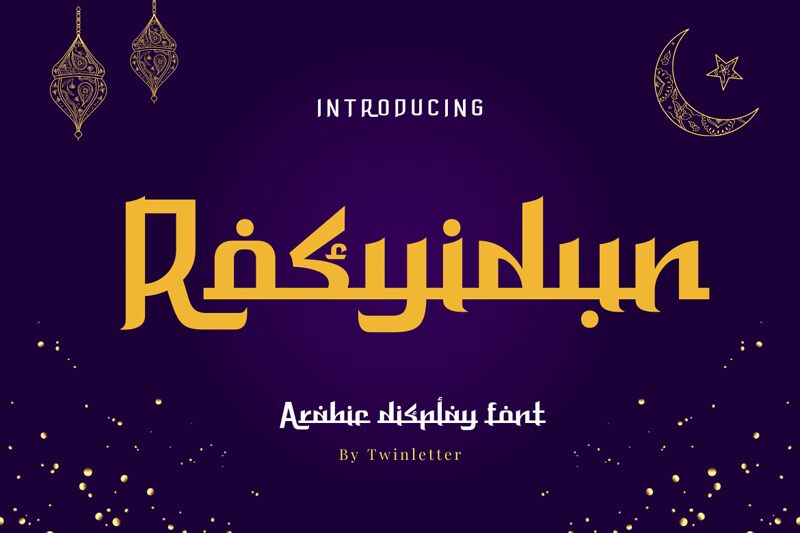
Rosyidun, crafted by twinletter, is a captivating foreign font that adds an exotic touch to any project. With its faux Arabic style and semi-condensed width, this typeface exudes elegance and uniqueness. Its intricate curves and delicate strokes make it perfect for creating eye-catching logos, stylish invitations, or enchanting book covers.
Rosyidun's versatility allows it to seamlessly blend with various design projects; whether you're working on travel brochures, cultural magazines, or even fantasy novels set in far-off lands.
Elevate your designs with Rosyidun and transport your audience to a world of beauty and mystique.